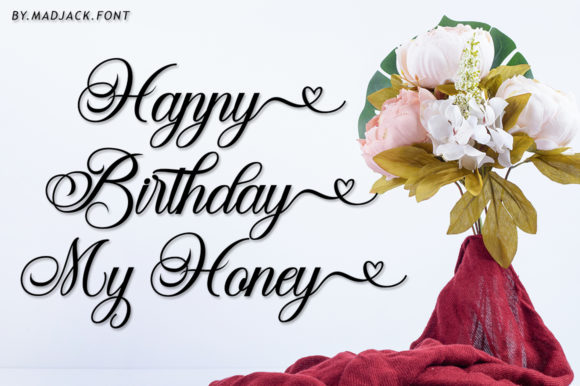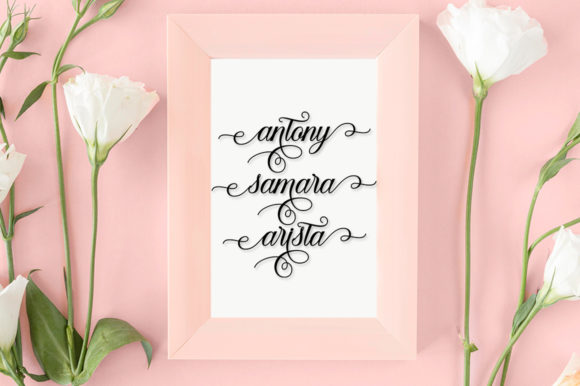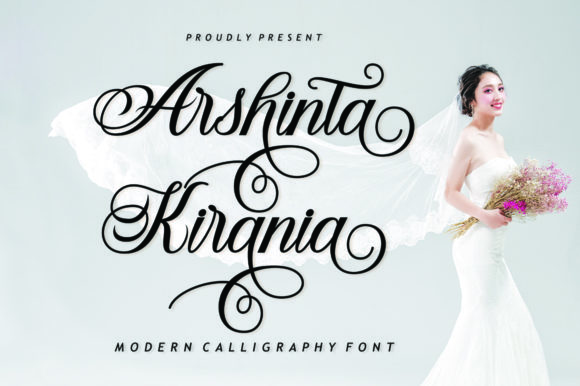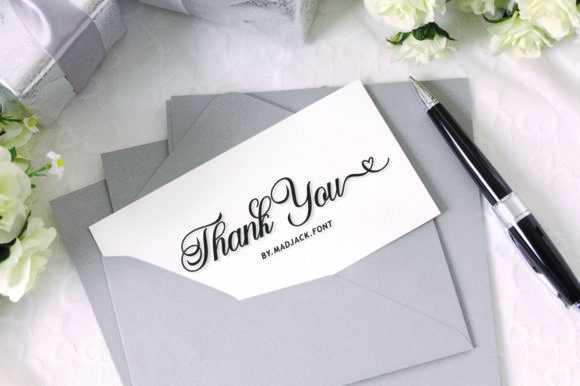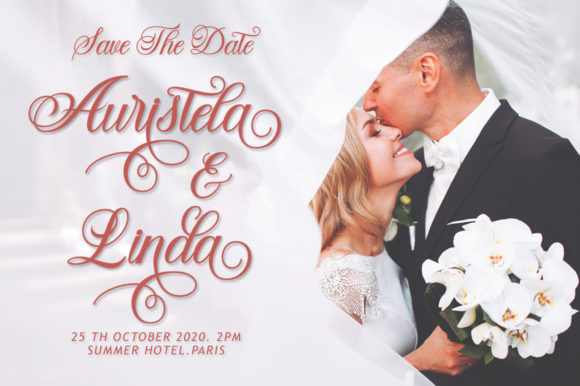
About Arshinta Kirania Font
Arshinta Kirania is a breathtakingly beautiful and romantic calligraphy font that adds an enchanting touch to any design project. With its dreamy and joyful appearance, this font exudes a sense of elegance and liveliness that captivates the viewer.
The balanced and varied letterforms of Arshinta Kirania make it a true work of art. Each stroke is meticulously crafted to enhance the beauty and flow of the font, creating a harmonious and captivating visual experience. The thickness of the letters strikes a perfect balance, making them neither too thin nor too thick, ensuring optimal legibility and aesthetic appeal.
Arshinta Kirania is designed to elevate the beauty of your projects. Whether you’re creating wedding invitations, greeting cards, branding materials, logos, or any other design that requires a touch of romance and sophistication, this font will transform your work into a masterpiece.
The versatility of Arshinta Kirania allows it to be used in a wide range of contexts. Its romantic and calligraphic style makes it ideal for wedding-related designs, where it can bring a sense of elegance and grace to invitations, save-the-date cards, and other stationery. It can also be used to add a touch of romance to quotes, social media graphics, and any other design that aims to convey a heartfelt message.
The extensive set of glyphs and swashes available in Arshinta Kirania allows for endless possibilities and creative freedom. You can easily access these additional elements thanks to the PUA encoding, enabling you to embellish your designs with flourishes, ornaments, and decorative elements that further enhance the romantic and intricate nature of the font.
Arshinta Kirania is not only visually stunning but also highly legible, ensuring that your message is effectively communicated. Its flowing and graceful letterforms create a seamless reading experience, making it a pleasure for the eye to follow along.
Embrace the dreamy, joyful, and full-of-life nature of Arshinta Kirania to infuse your designs with romance and elegance. Let its balanced and varied letterforms enhance the beauty of your projects, capturing the hearts of your audience. With Arshinta Kirania, your designs will evoke emotions, create memorable experiences, and leave a lasting impression.